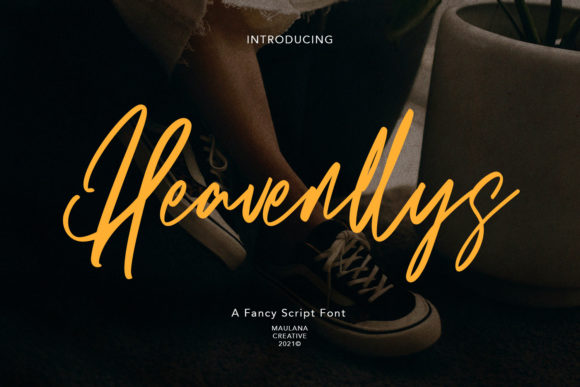
Unlock the Gateway to Elegance with Heavenllys Font - The Script of Sophistication and Grace
In a world craving authenticity and individuality, Heavenllys Font emerges as a radiant beacon of creativity, beckoning you to embrace your unique style. This exquisite script, crafted with meticulous attention to detail by Maulana Creative, is not just a font; it's a symphony of elegance, a dance of sophistication, and an ode to timeless beauty.
Immerse yourself in the enchanting world of Heavenllys, where every letter is a stroke of artistry, every word a masterpiece. Its delicate curves and graceful flourishes evoke a sense of nostalgia, transporting you to an era of romance and charm. Yet, Heavenllys is not merely a tribute to the past; it gracefully embraces the present, offering a dash of contemporary flair that keeps it relevant and captivating.
With Heavenllys at your disposal, your creative possibilities are boundless. Its versatility knows no limits, effortlessly adapting to a myriad of projects, from heartfelt wedding invitations that whisper sweet nothings to captivating social media posts that demand attention. Unleash your inner artist and transform ordinary designs into extraordinary works of art.
Picture a wedding invitation adorned with Heavenllys' flowing script, its delicate strokes intertwining like two souls bound by love. The elegance of the font elevates the moment, setting the tone for a celebration that exudes romance and joy. Or envision a social media post that leaps off the screen, its message amplified by Heavenllys' captivating allure. The graceful letters command attention, drawing viewers into a world of inspiration and enchantment.
Heavenllys is more than just a font; it's an experience, an extension of your creative self. As you glide your fingers across the keyboard, the letters dance in harmony, transforming your thoughts into visual masterpieces. Prepare to be captivated by its charm, enchanted by its versatility, and inspired by its endless possibilities.